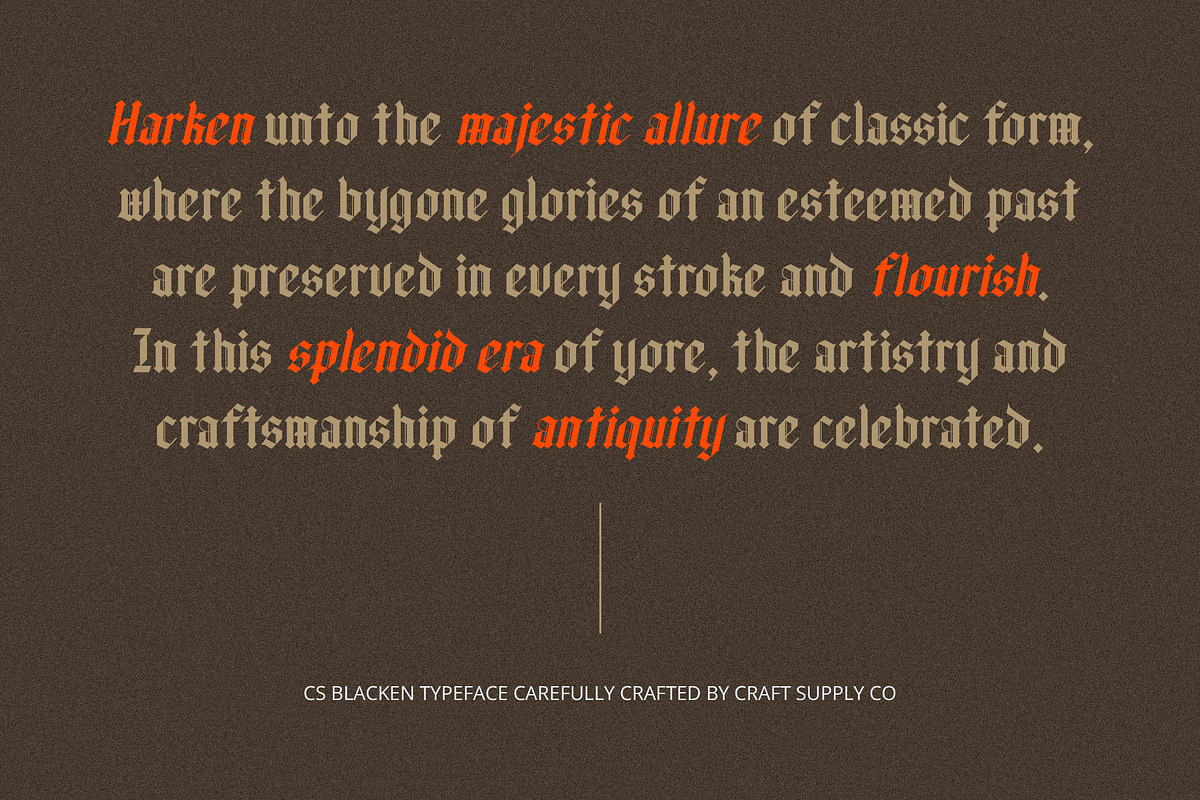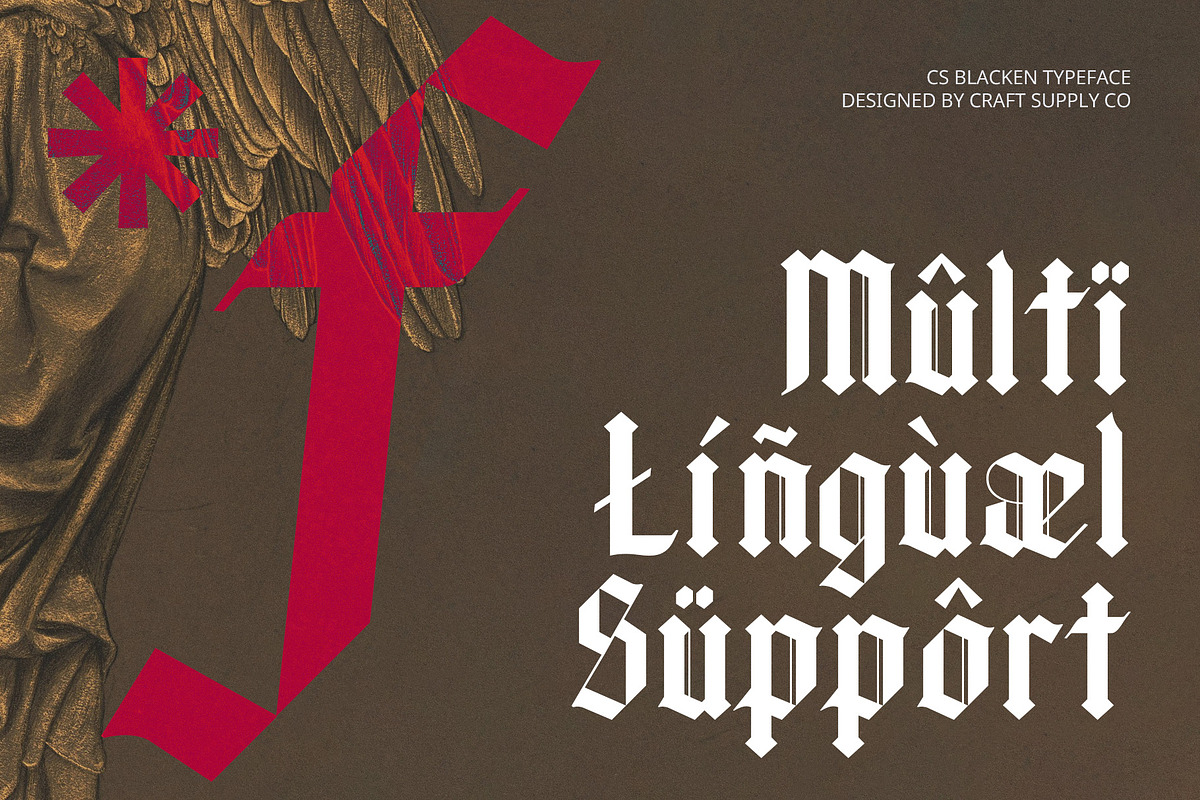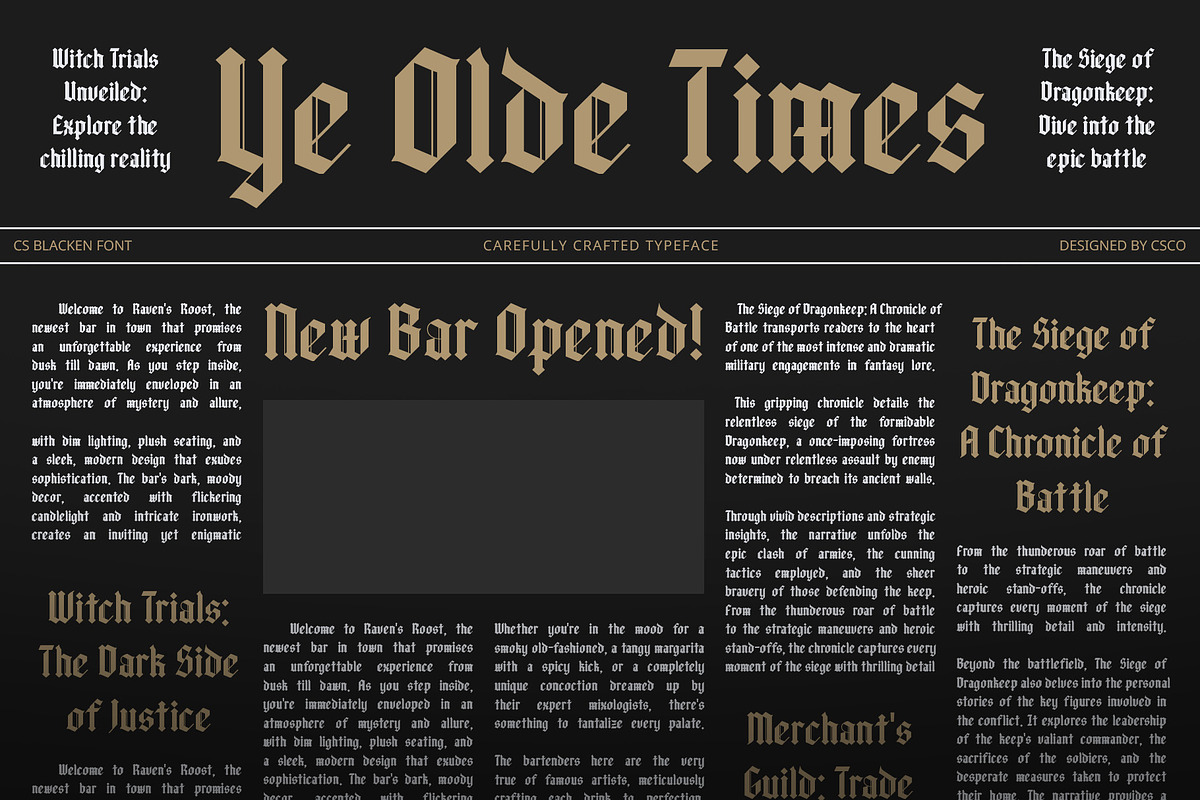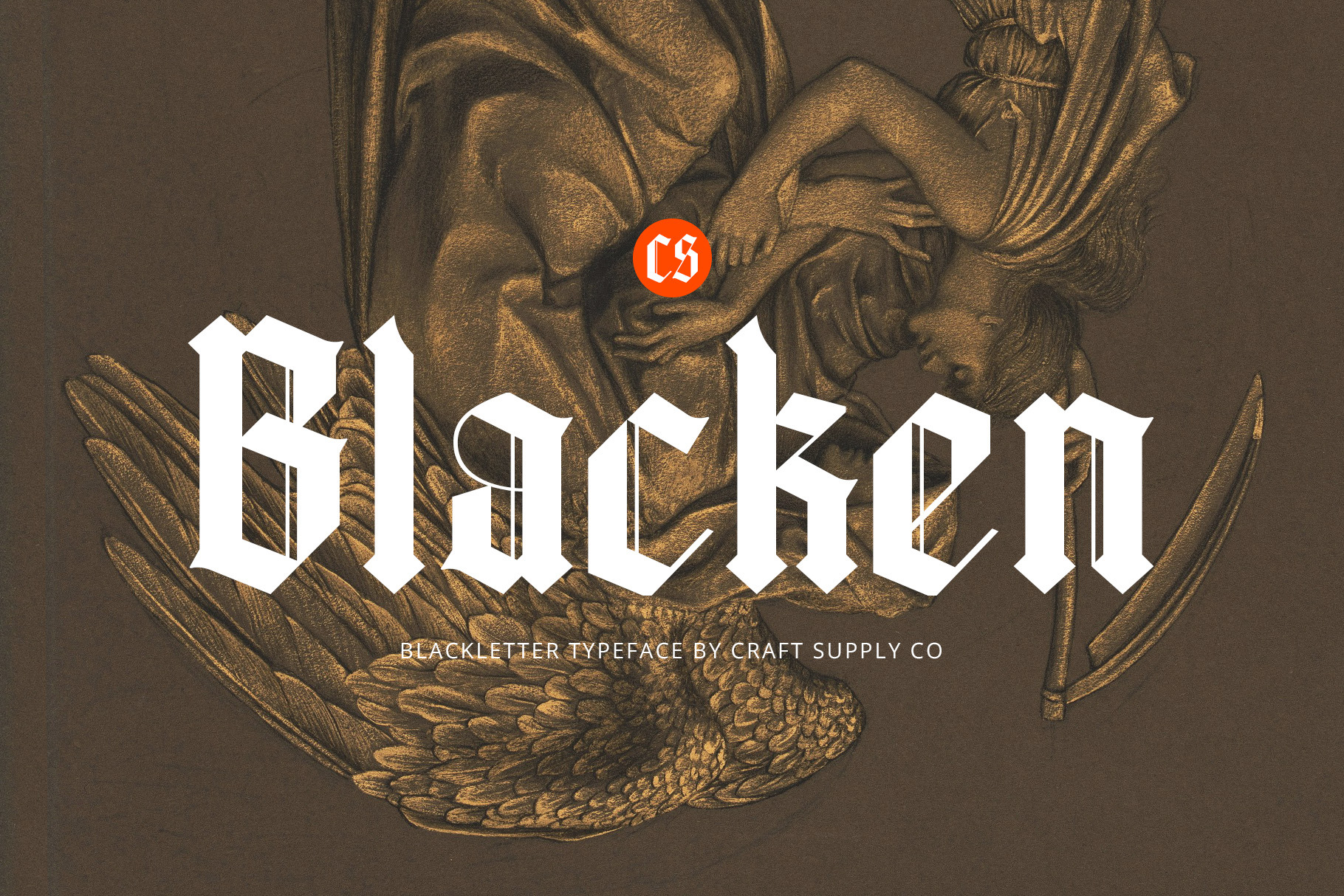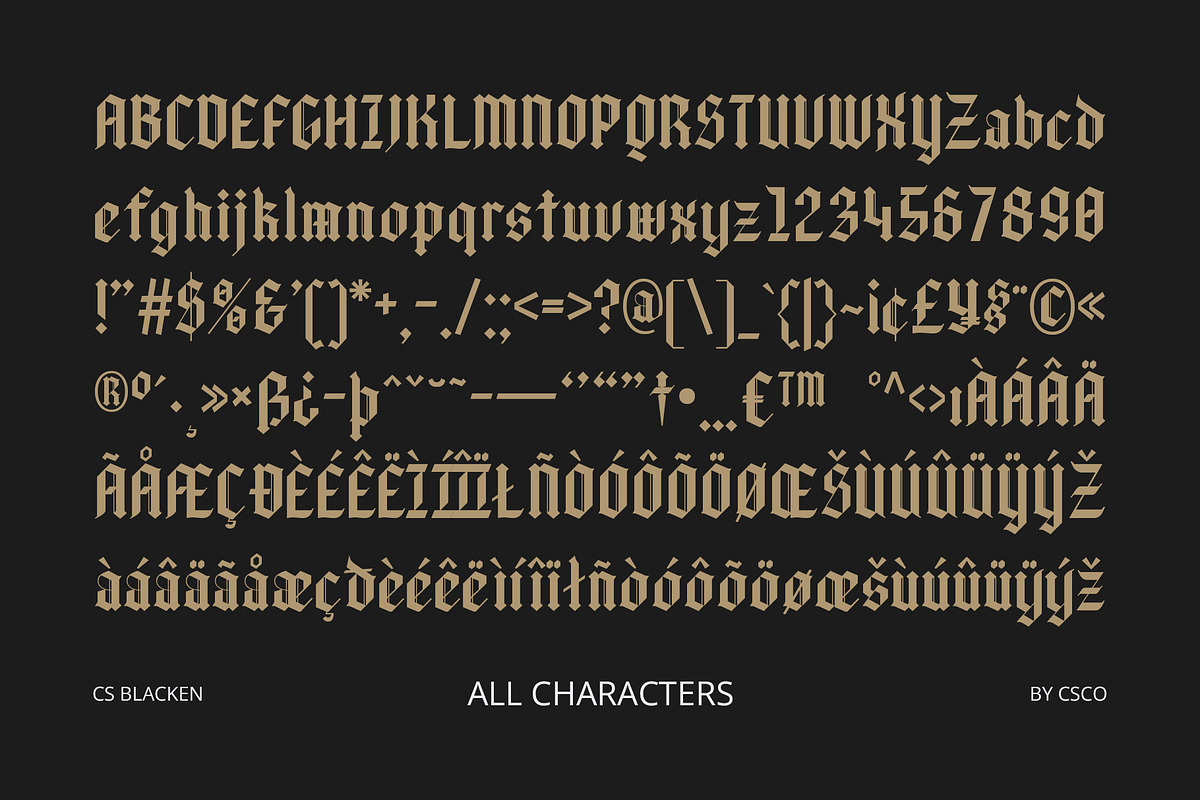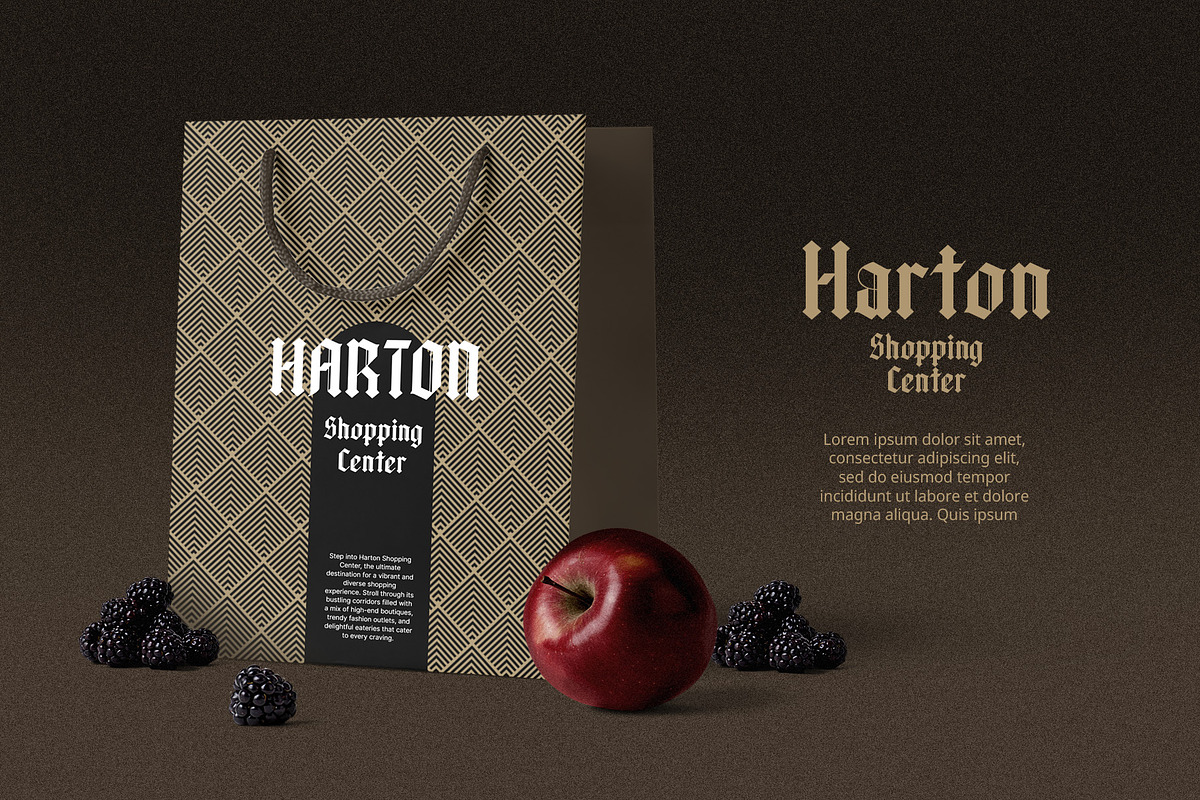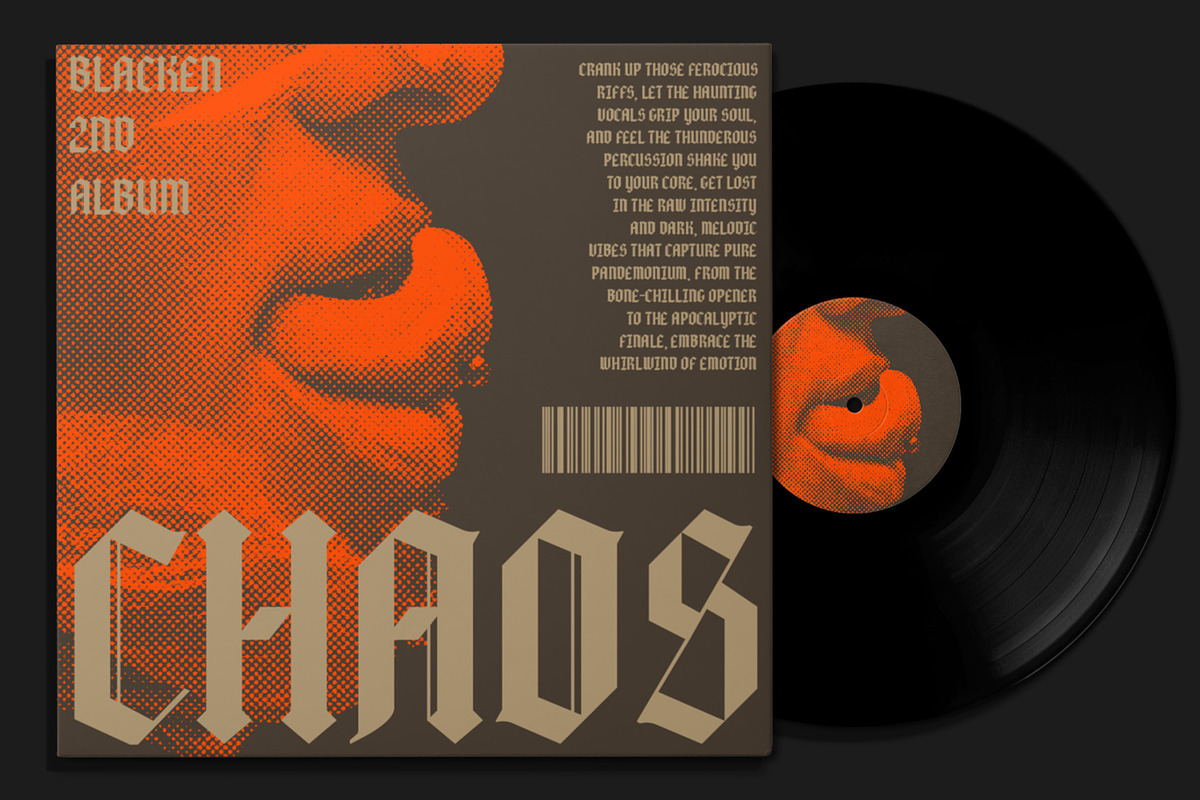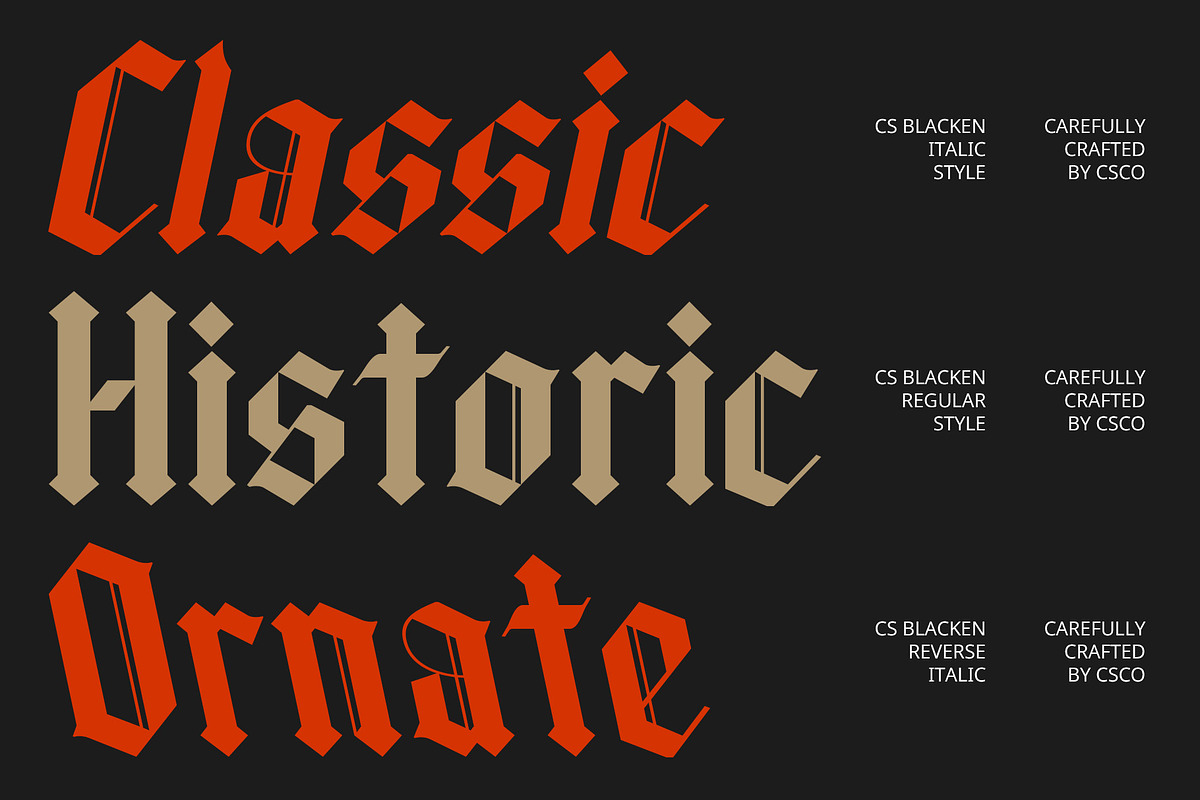
CS Blacken – Blackletter Font
CS Blacken Font: Majestic Blackletter Font
Historic Grandeur and Mystique CS Blacken is a distinguished Blackletter serif font that masterfully blends historical grandeur with an enigmatic charm. Featuring intricate and ornate letterforms, this font exudes a timeless, classic aura, perfect for creating a strong and majestic visual impact.
Intricate and Ornate Letterforms The bold, sharp shapes of CS Blacken provide a dramatic effect, with elaborate details that enhance the depth and uniqueness of any design. The ornate design evokes a sense of historical significance and sophistication, adding a layer of complexity to your projects.
Classic and Traditional Aesthetic Ideal for projects requiring a formal or historical appearance, CS Blacken brings a sense of strength and grandeur to the table. Its traditional design is perfect for important documents, historical designs, or artworks that aim to convey a powerful and classic message.
Versatile for Formal and Historical Projects Whether you’re working on high-impact documents, historical artwork, or any project that benefits from a classic and formal tone, CS Blacken provides the perfect solution. Its rich design offers both visual strength and a touch of mystery, making it a versatile choice for conveying a grand and distinguished message.